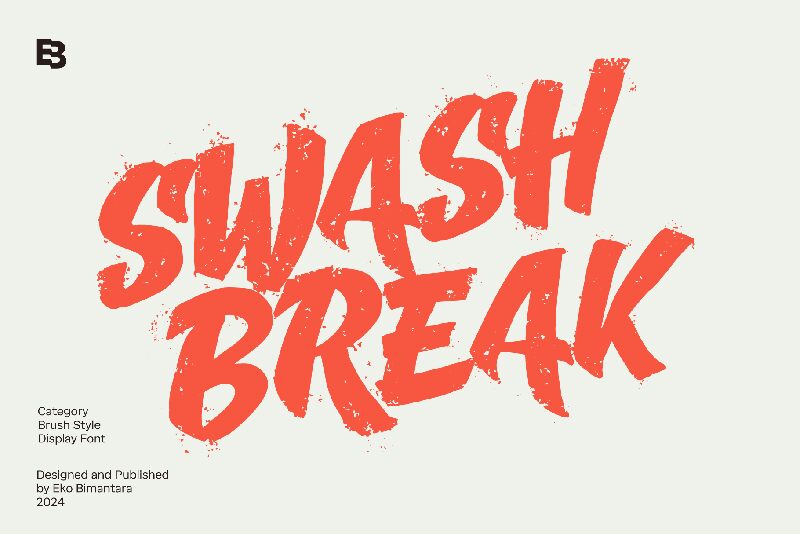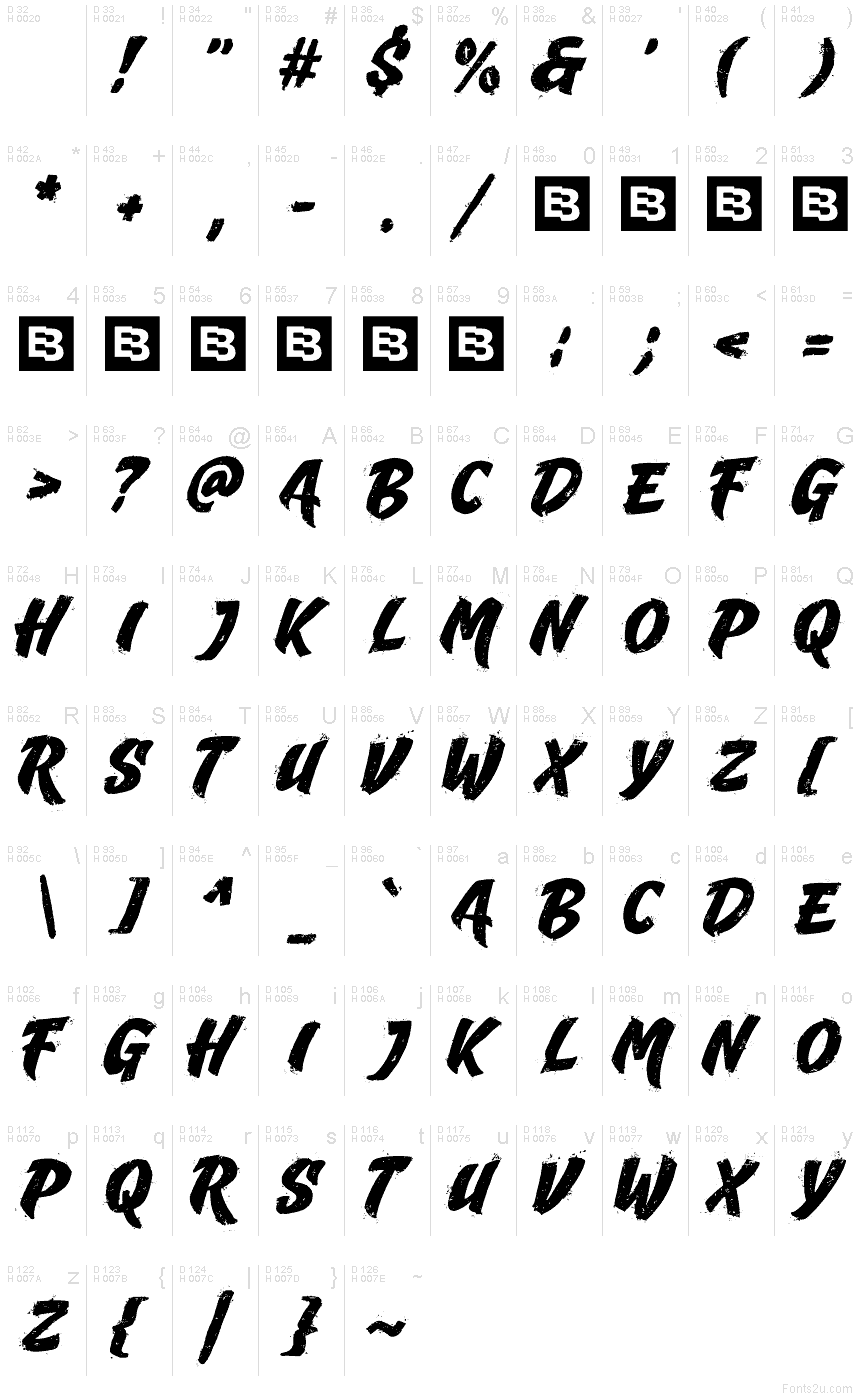
Swash Break font by Eko Bimantara is a free distressed brush font. Its defining move is the slash-and-splatter texture: thick, inky strokes with torn edges and a forward lean that reads fast and loud. Letters lock together with a punchy rhythm, so headlines feel like they were swiped across a wall in one breath.
Using Swash Break gives instant grit and motion to action-sports posters, concert flyers, streetwear graphics, YouTube thumbnails, bold packaging, event signage, and social promos. The rough finish adds bite without losing legibility, making short phrases pop even at a distance. For balance, pair this free font with a clean, condensed sans in the subheads to keep the message sharp.